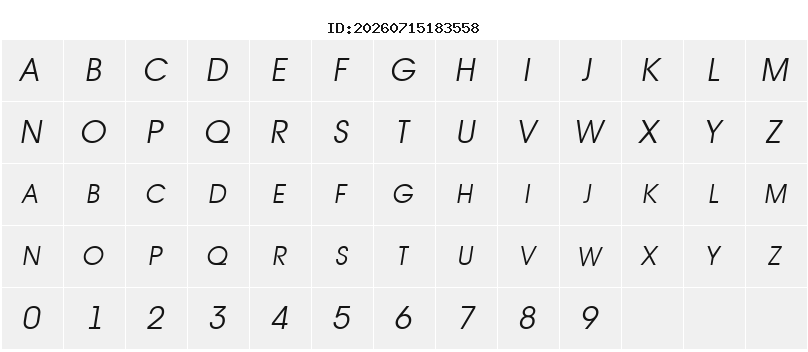
a_AvanteTitlerCpsUpC Preview
• Font Name: a_AvanteTitlerCpsUpC
• Font Style: LightItalic
• Font ID: Macromedia Fontographer 4.1 a_AvanteTitlerCpsUpC LightItalic
• Full Font Name: a_AvanteTitlerCpsUpC LightItalic
• Version: Macromedia Fontographer 4.1 17.11.97
• PostScript Name: AAvanteTitlerCpsUpCLightItalic
About a_AvanteTitlerCpsUpC.ttf
a_AvanteTitlerCpsUpC.ttf is a modern, elegant sans-serif font designed for ultimate readability and visual harmony. Perfect for branding, headlines, web design, and print materials.